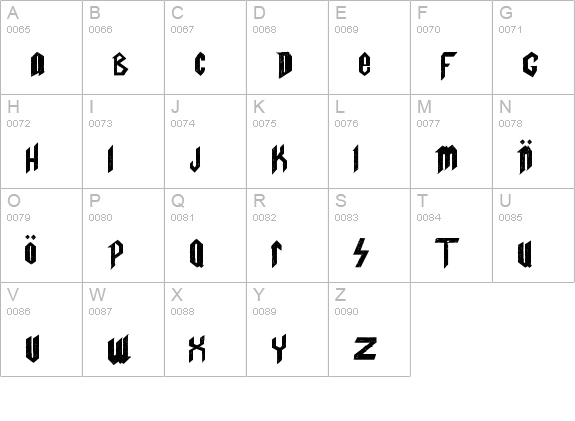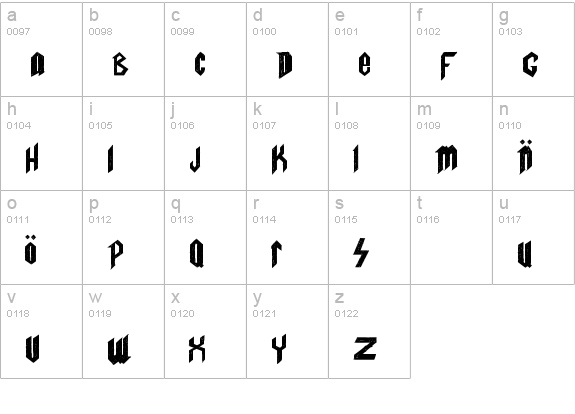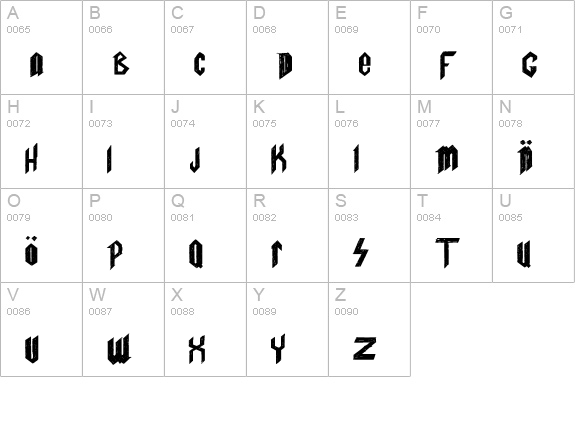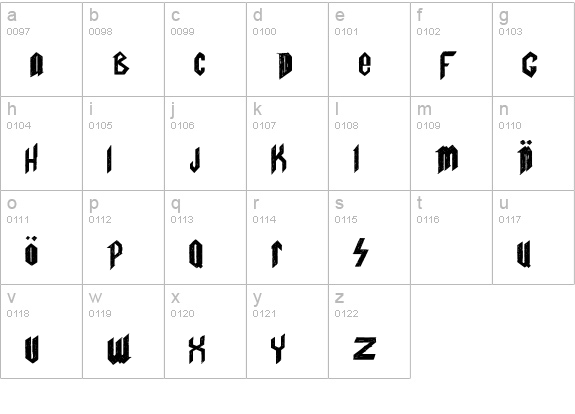
Introducing the captivating and visually stunning Spinal T. FanBoy font! This magnificent typeface boasts a playful and energetic design that is sure to leave a lasting impression on any project. With its unique blend of bold strokes and intricate details, Spinal T. FanBoy exudes a sense of dynamism that is unparalleled. This font is the perfect choice for those seeking to add a touch of excitement and vibrancy to their designs. Whether you're working on posters, logos, or even social media graphics, Spinal T. FanBoy will effortlessly elevate your creations to new heights. Its versatility allows it to seamlessly adapt to various design styles, making it a must-have for any creative professional. But what truly sets Spinal T. FanBoy apart is that it is freely available to download at FontsMarket.com. Yes, you read that right! This incredible font can be yours without any cost, allowing you to unleash your creativity without breaking the bank. FontsMarket.com is renowned for its vast collection of high-quality fonts, and Spinal T. FanBoy is a shining gem in their treasure trove. By downloading Spinal T. FanBoy, you not only gain access to a visually captivating font but also open up a world of endless possibilities. Its flawless curves and attention to detail make it a joy to work with, enabling you to effortlessly bring your ideas to life. Get ready to embark on a creative journey like no other, all thanks to the freely available Spinal T. FanBoy font at FontsMarket.com.